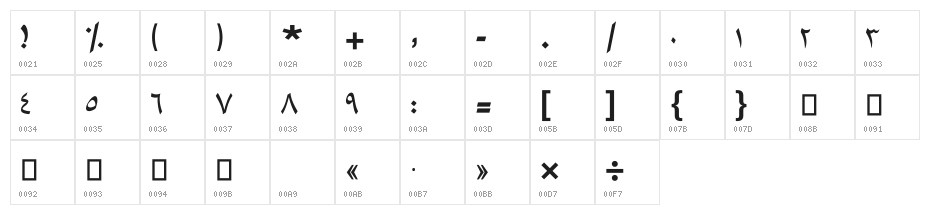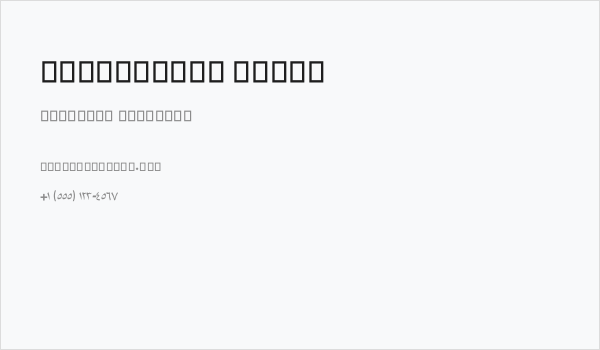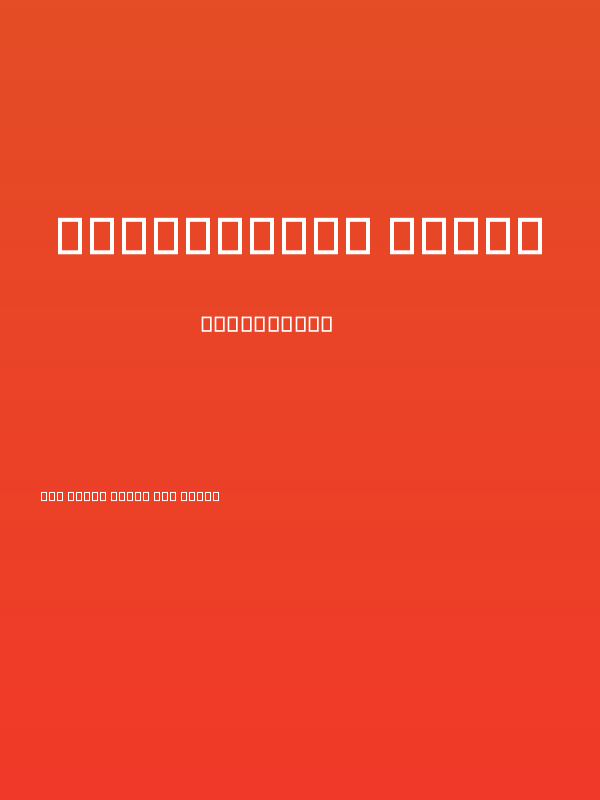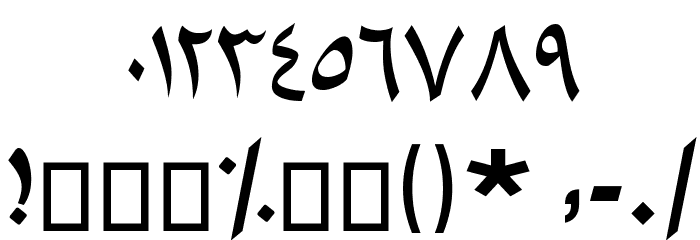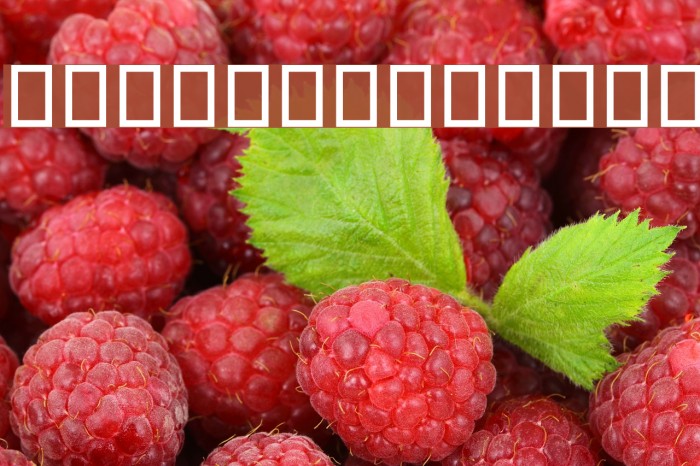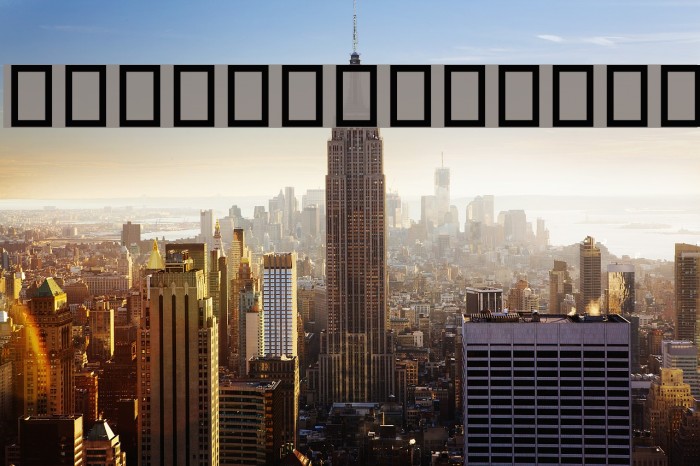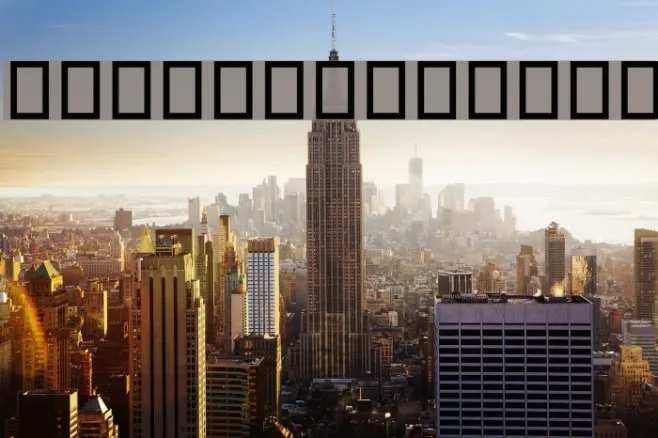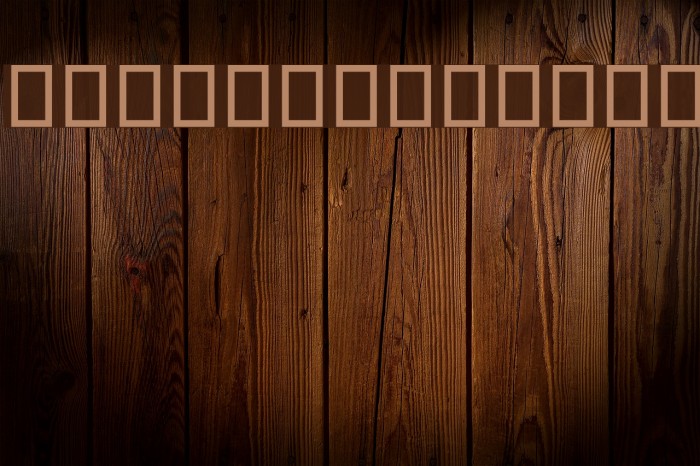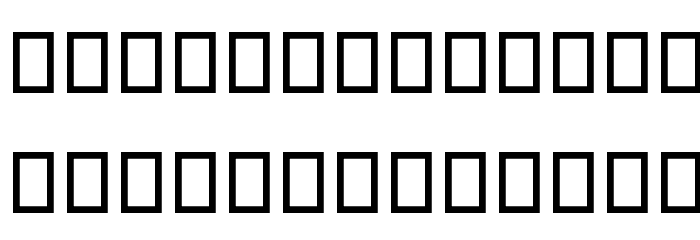
Typography Light Font
Typography Light Description
The image does not display valid font characters; instead, it shows placeholder glyphs or missing character boxes for the alphabet, with only the numerals and some symbols rendered in a stylized, handwritten script.
گالری فانت فارسی پژوهش آريانا - only compatible with Farsi and Arabic